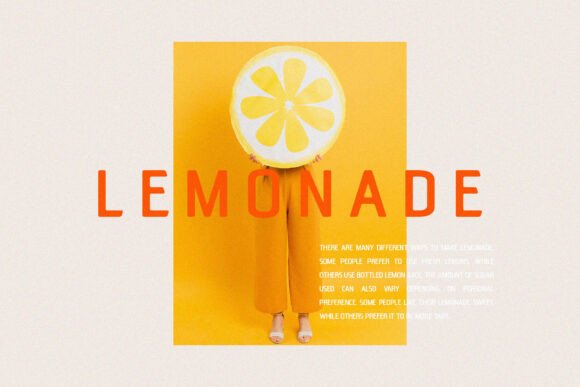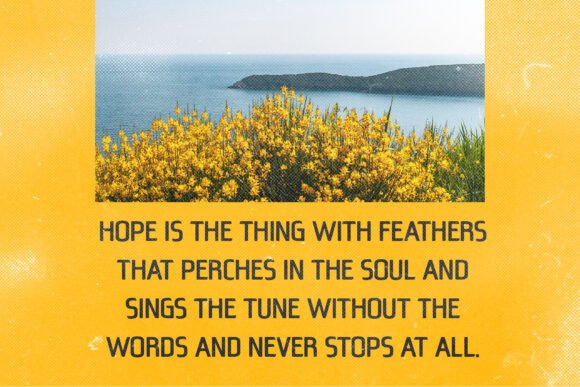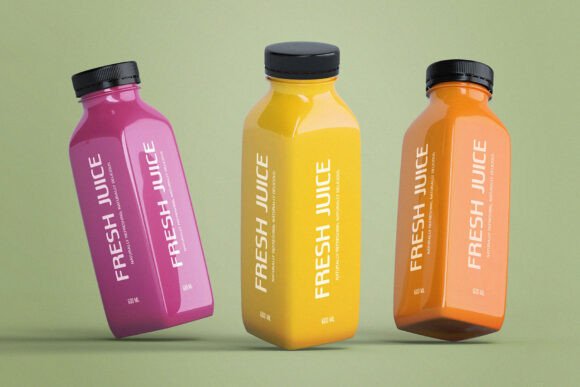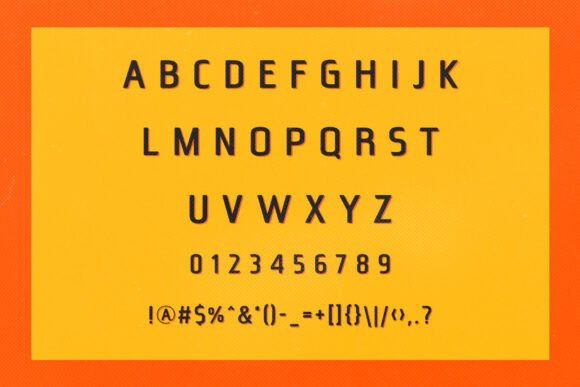
Introduction to Motuba Font
Introducing Motuba Retro Sans Serif Font.
Motuba is a modern and nostalgic sans serif font, best used as a display for headings, logos, branding, magazines, product packaging, and invitations Motuba comes with clean lines and smooth curves, giving any project an extra touch of class.